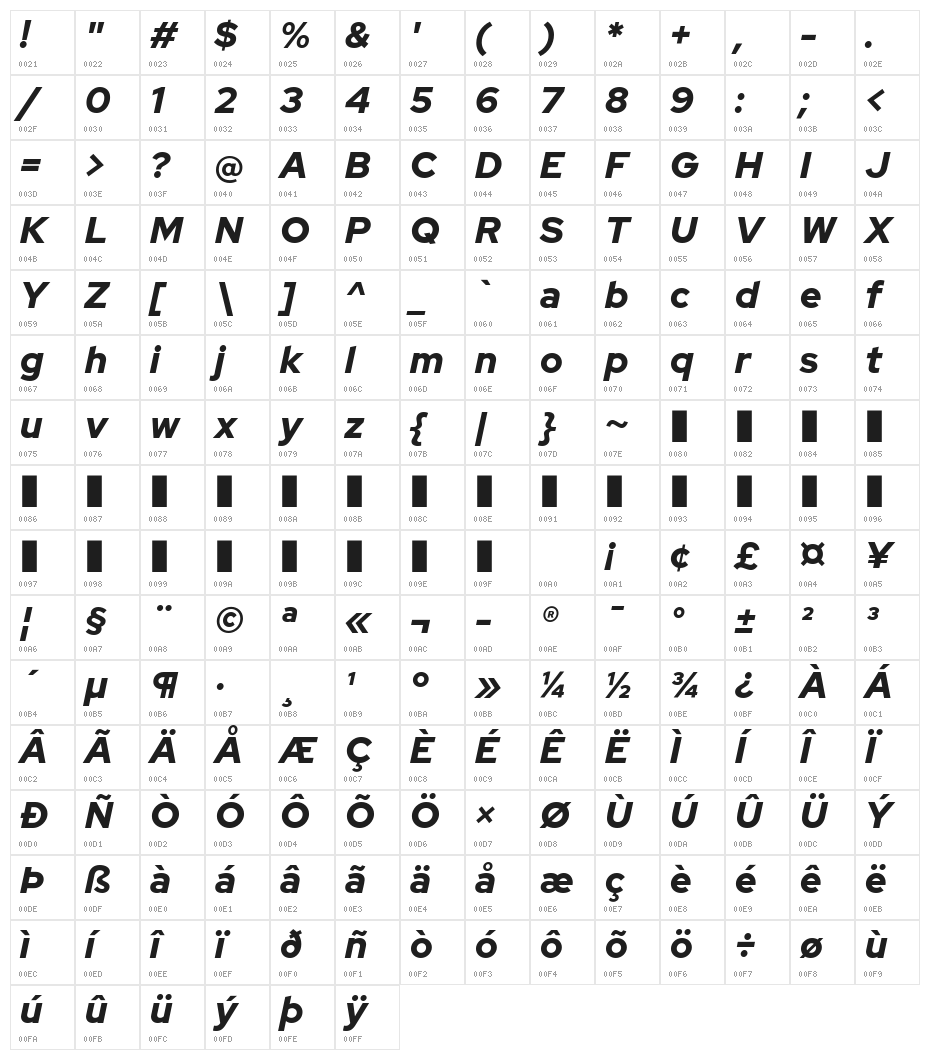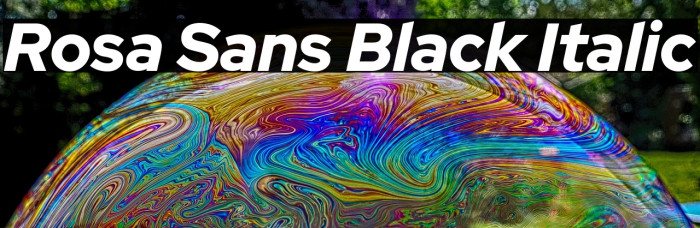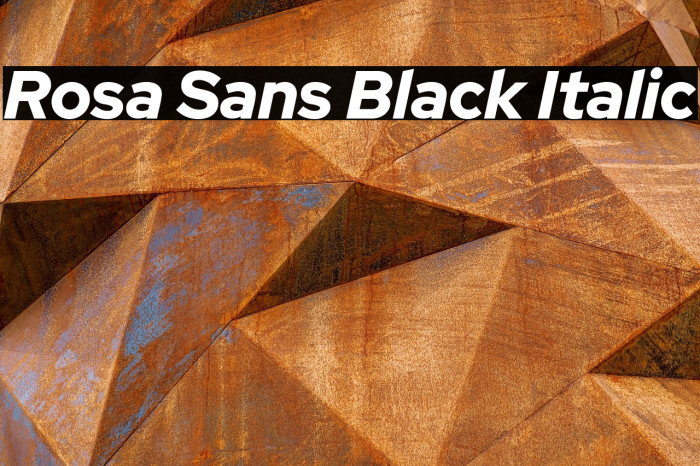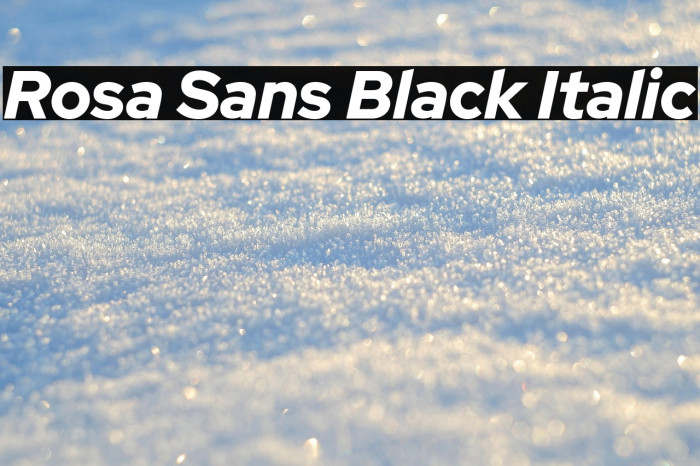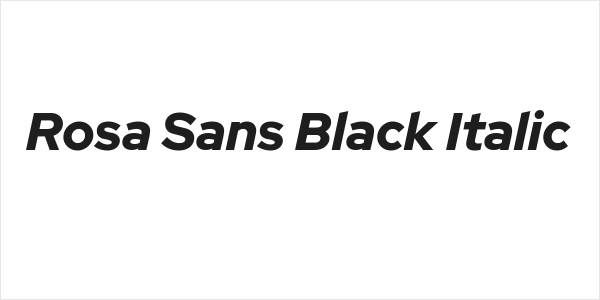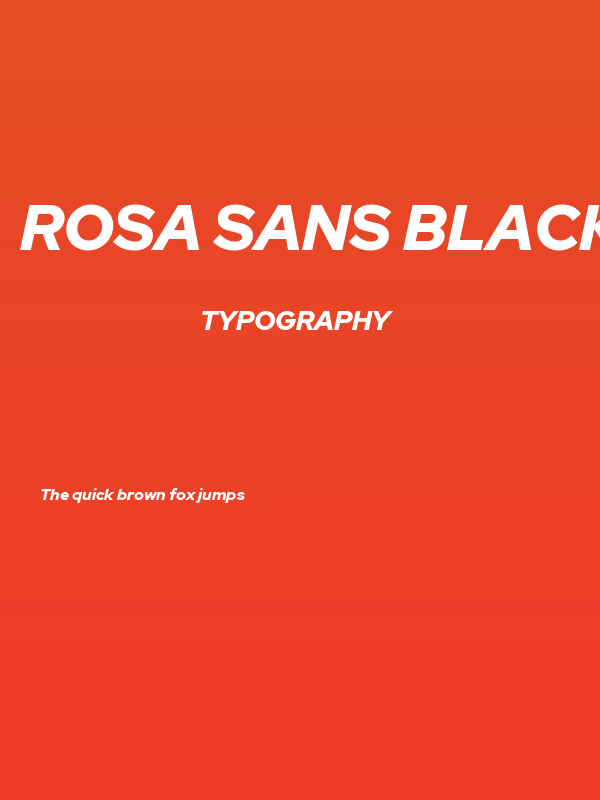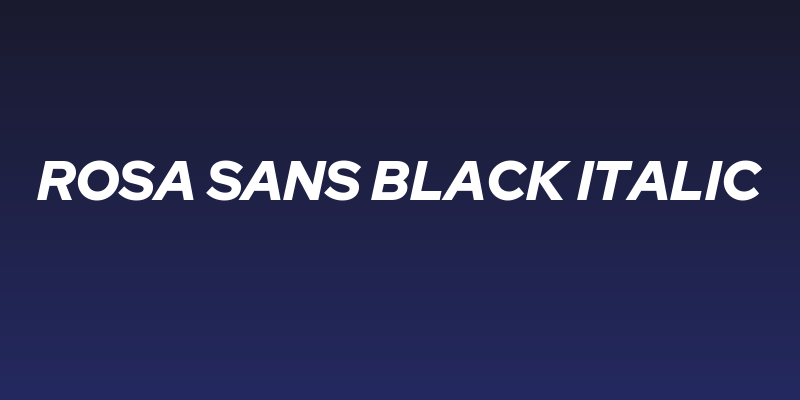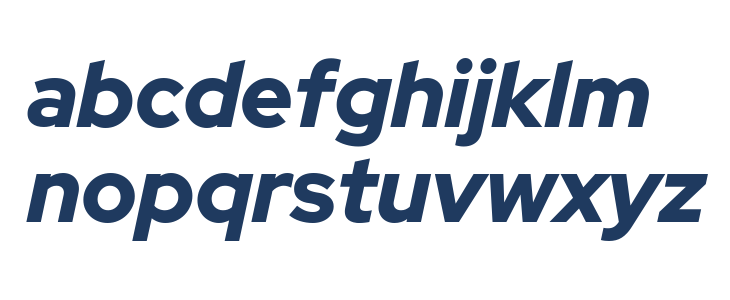
Rosa Sans Black Italic Font
Rosa Sans Black Italic Description
This typeface features a bold and dynamic sans-serif style with a pronounced italic slant, giving it a sense of movement and modernity. The characters are robust and well-defined, with a consistent stroke width that conveys strength and clarity. The uppercase and lowercase letters maintain a harmonious balance, while the numerals are clear and easily distinguishable. Special characters are designed to complement the overall aesthetic, making this font versatile for various applications. Its clean lines and contemporary feel make it suitable for both digital and print media.